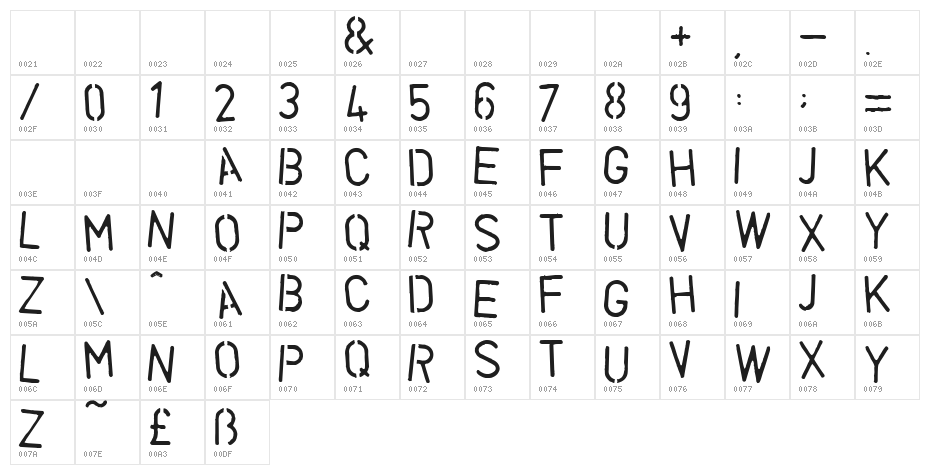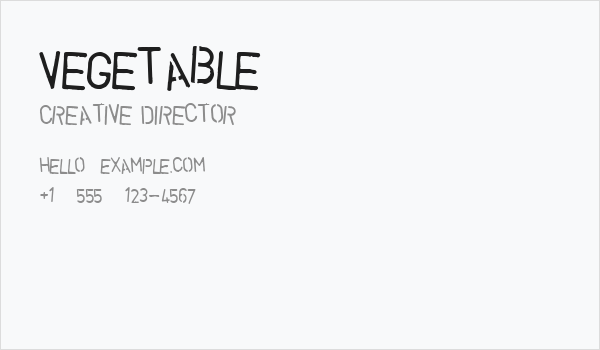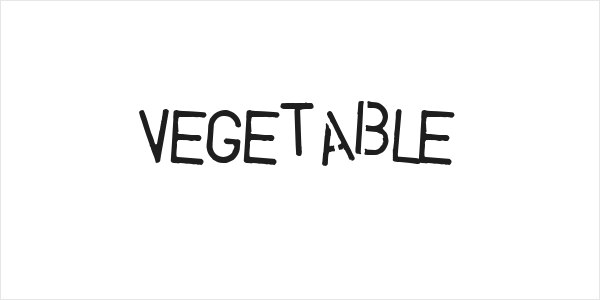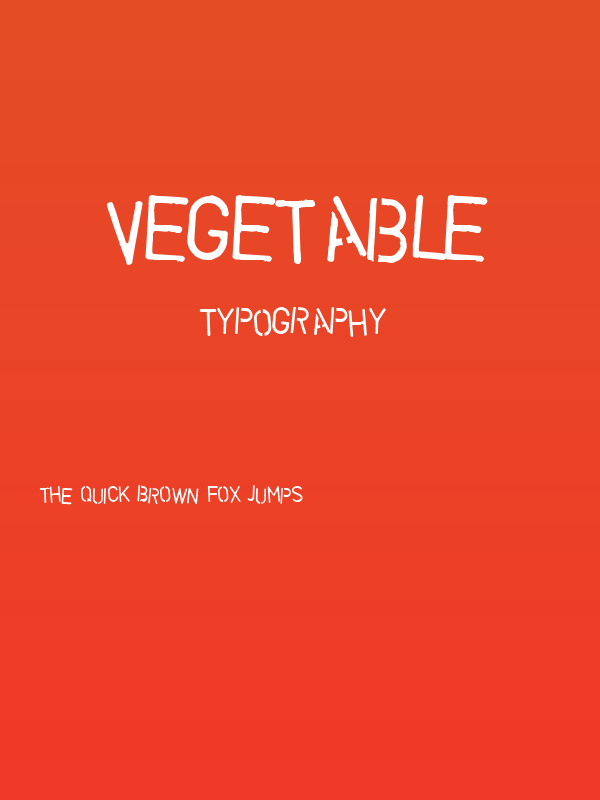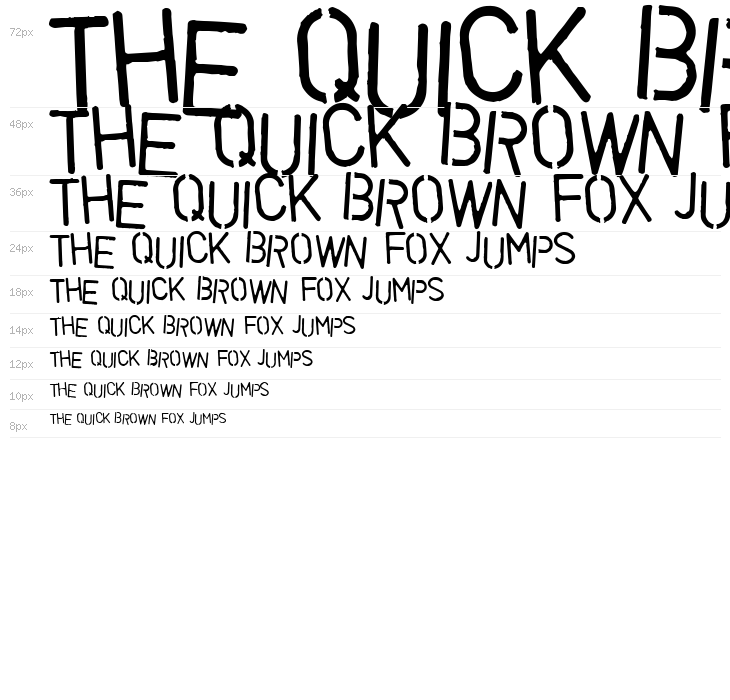
Vegetable Font
Vegetable Description
This font features a bold and rugged style with a hand-drawn appearance, giving it a unique and organic feel. The characters are slightly irregular, adding to its charm and making it stand out in any design. The uppercase letters are prominent and well-defined, while the numbers and special characters maintain the same boldness and distinctive style. This font is perfect for projects that require a touch of creativity and individuality, such as posters, branding, and artistic designs.
Proposed ProjectsIdeal for posters, branding, artistic designs, and creative projects.